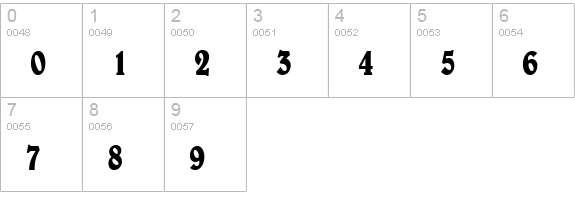
Barrister Condensed SSi Condensed Font Details
Barrister Condensed SSi Condensed is a distinctive, condensed-width variant in the Barrister typeface family \xE2\x80\x94 well suited to design and typography projects.
Barrister Condensed SSi Condensed font is a sleek and modern typeface that exudes elegance and sophistication. Its condensed design allows for efficient use of space while maintaining readability and visual impact. Perfect for titles, headings, and branding, this font brings a touch of professionalism to any project. The best part? Barrister Condensed SSi Condensed font is available for free download at FontsMarket.com. Don't miss out on the opportunity to enhance your designs with this premium font without any cost. Download it now and elevate your typography game with Barrister Condensed SSi Condensed font.